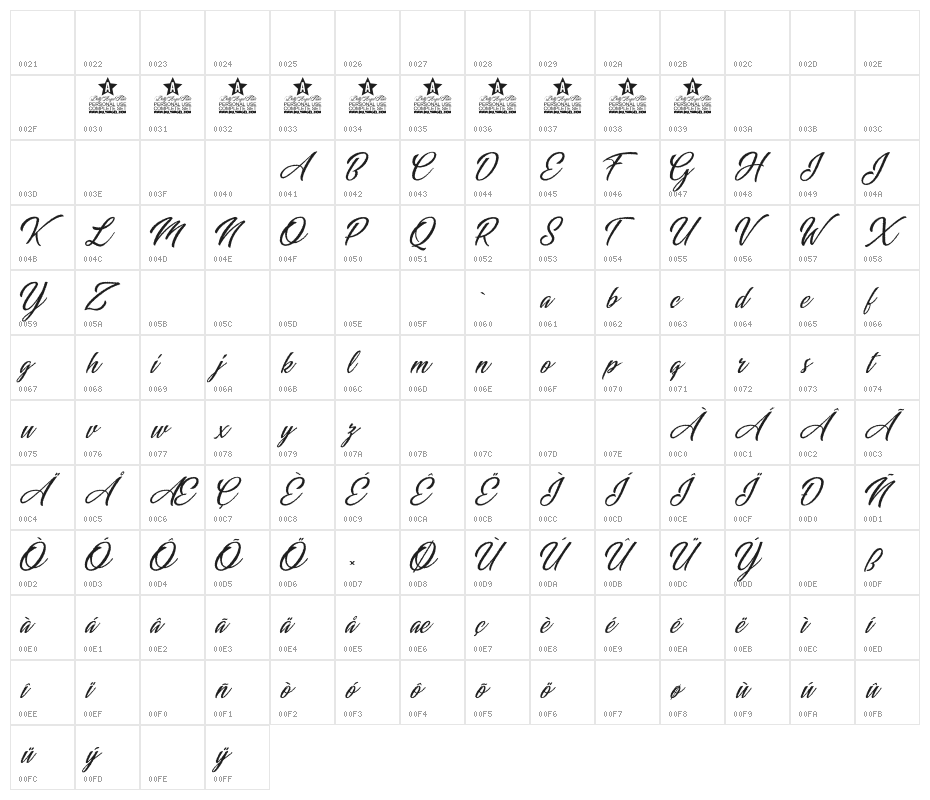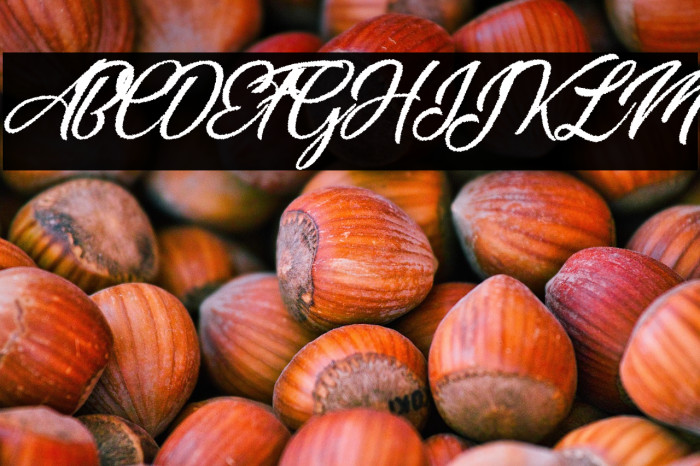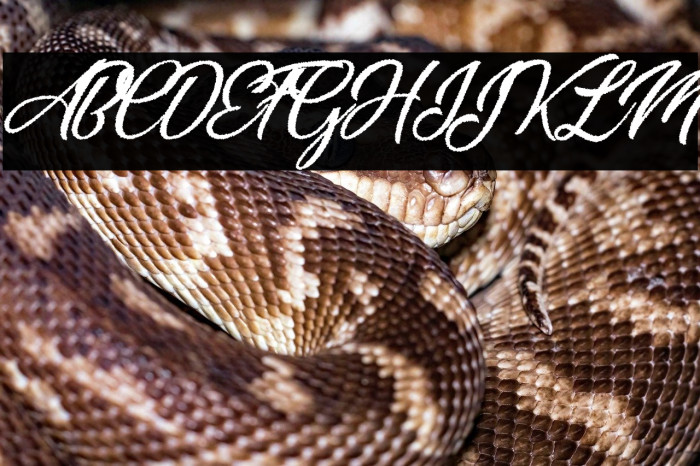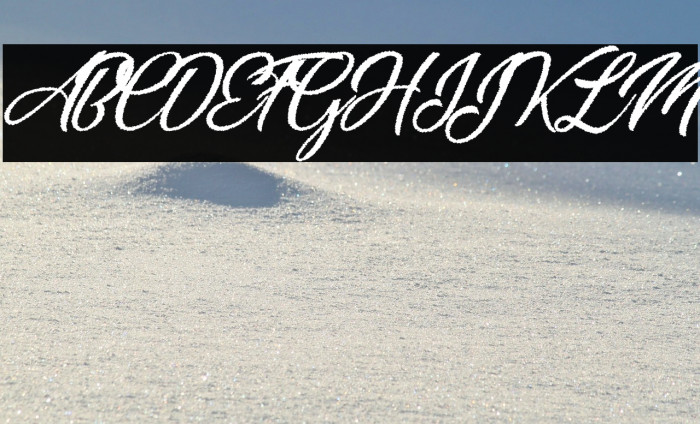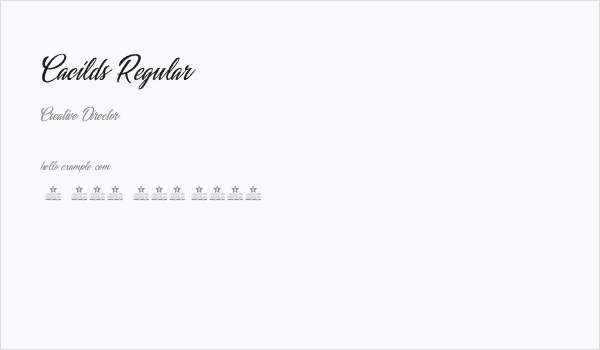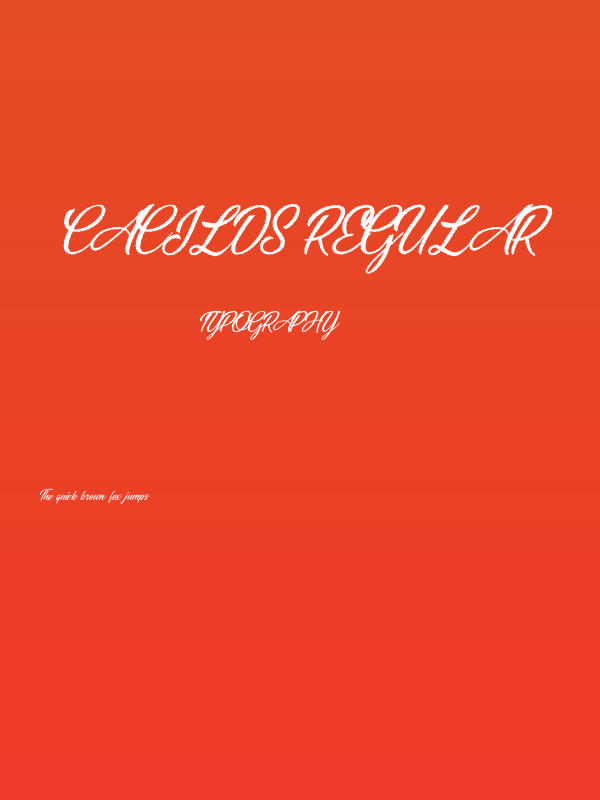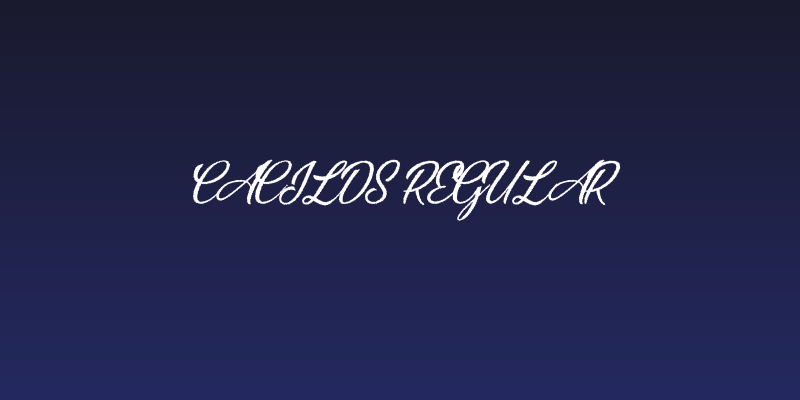
Cacilds Regular Font
Cacilds Regular Description
This font features a dynamic and flowing script style, characterized by its elegant and cursive letterforms. The uppercase letters are bold and sweeping, with intricate loops and flourishes that give a sense of movement and grace. The lowercase letters maintain a consistent flow, complementing the uppercase with their smooth and connected strokes. The font exudes a sense of sophistication and charm, making it ideal for projects that require a touch of elegance. The characters are well-spaced, ensuring readability while maintaining the artistic flair of the script. This font is perfect for creating eye-catching designs that require a personal and stylish touch.
| Overall Style | Elegant |
| Use Case | Logos, Invitations, Decorative text |
| Proposed Projects | Ideal for wedding invitations, greeting cards, branding, and elegant logo designs. |